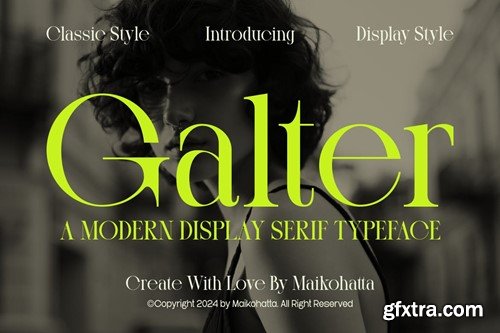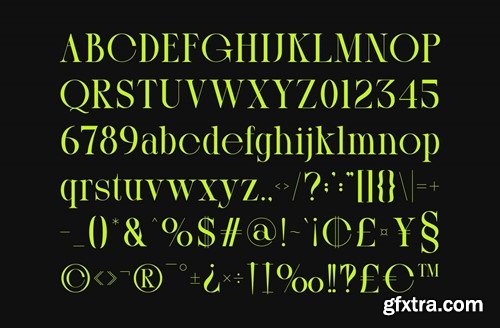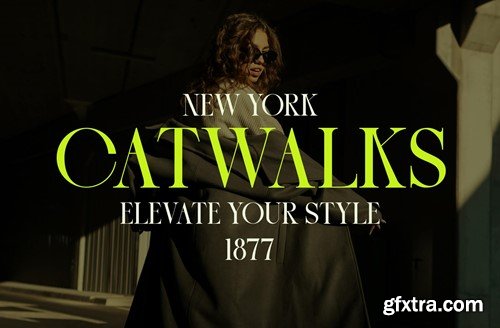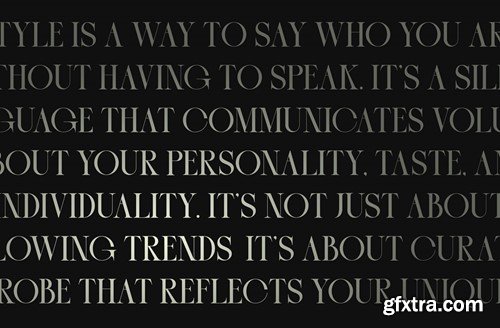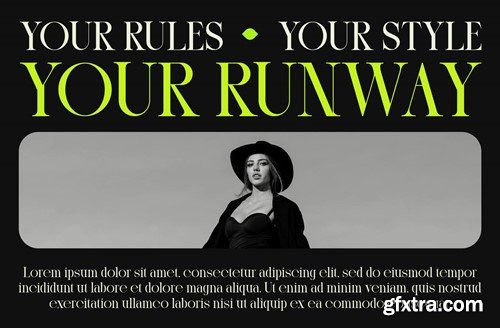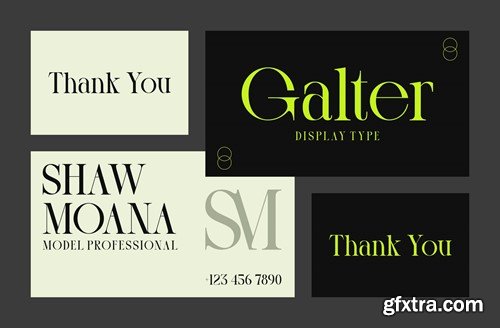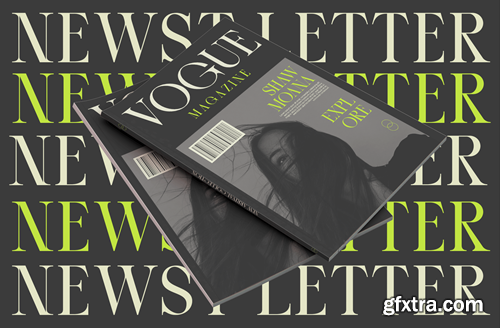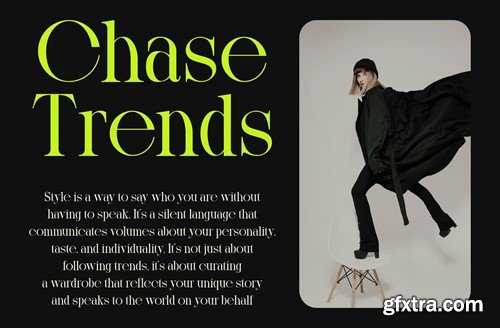
Gal太尔 - 现代显示衬线字体 PAZPTLY
Galter - Modern Display Serif Typeface PAZPTLY
Galter - Modern Display Serif Typeface
Introducing our new product Galter Modern Display Serif Typeface
This font features a balanced proportion of stroke thickness and fineness, creating attractive and easy-to-read visuals. This modern serif style is often characterized by a bold distinction between thick and thin lines, providing a touch that is understated but still stands out.